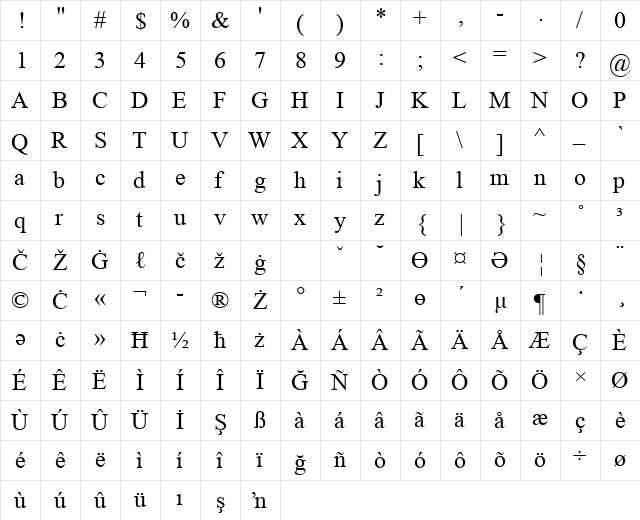
Liborsoft Latin E Regular
Design Context for Liborsoft Latin E Typeface
Liborsoft Latin E is a composed and adaptable typeface that performs quietly and consistently across a wide range of design contexts.